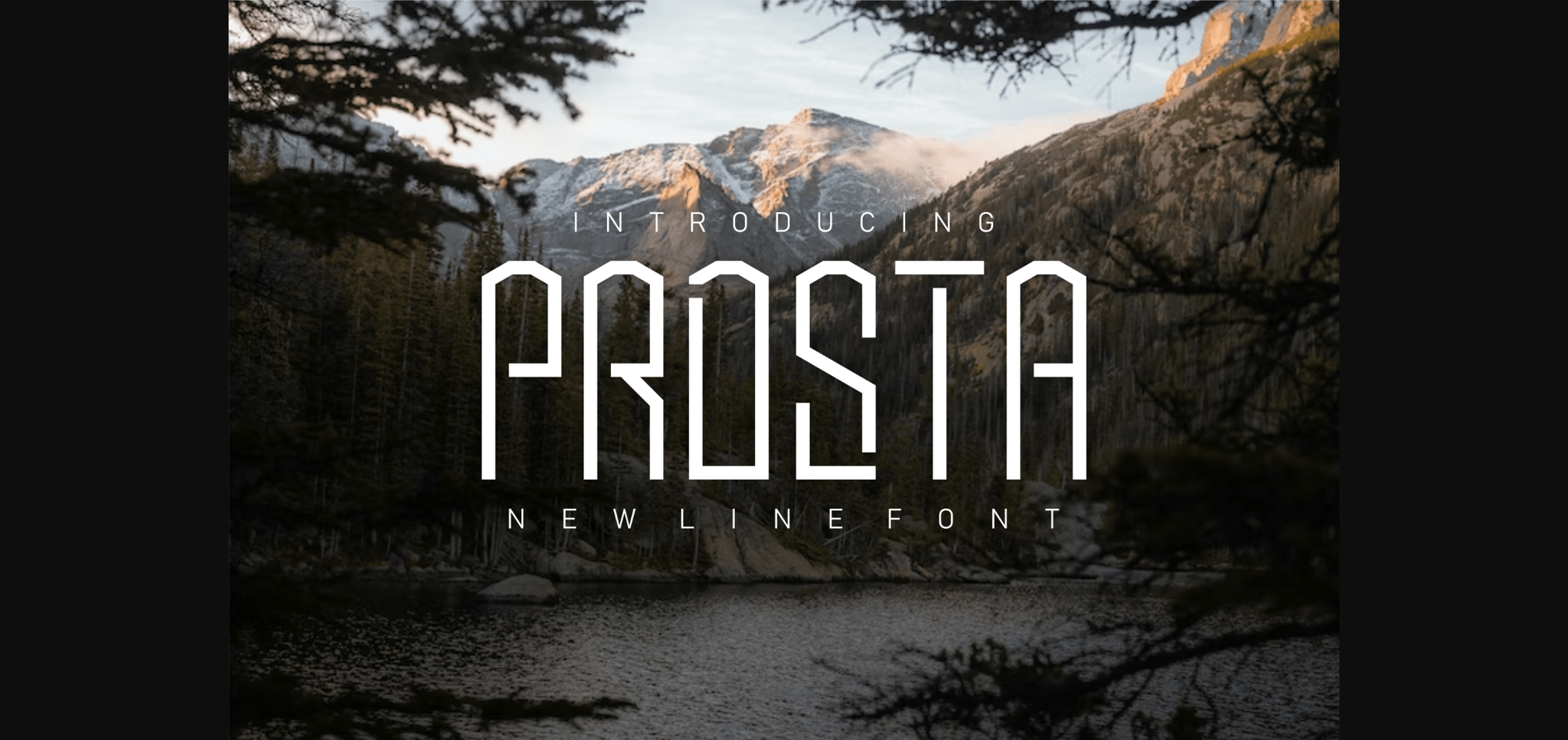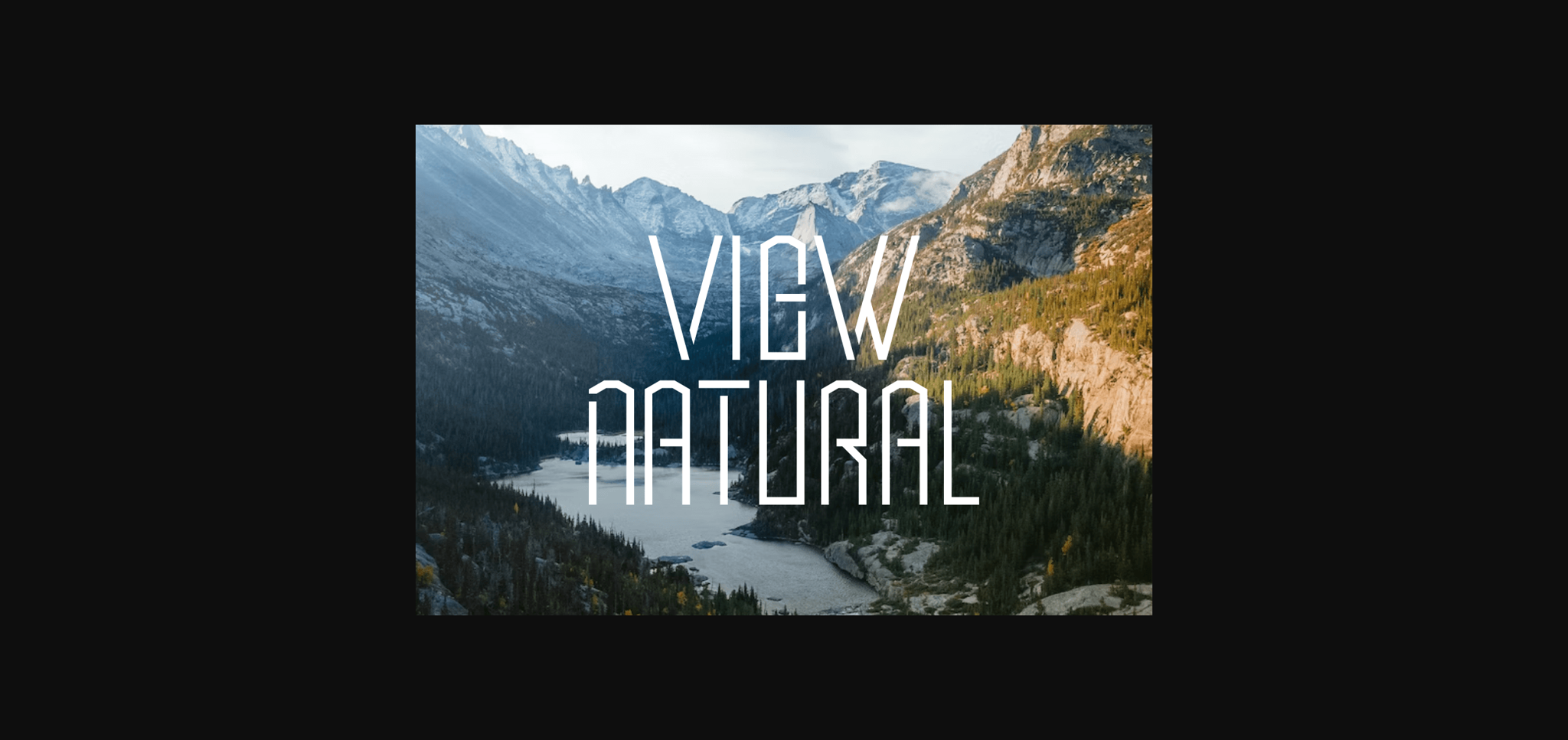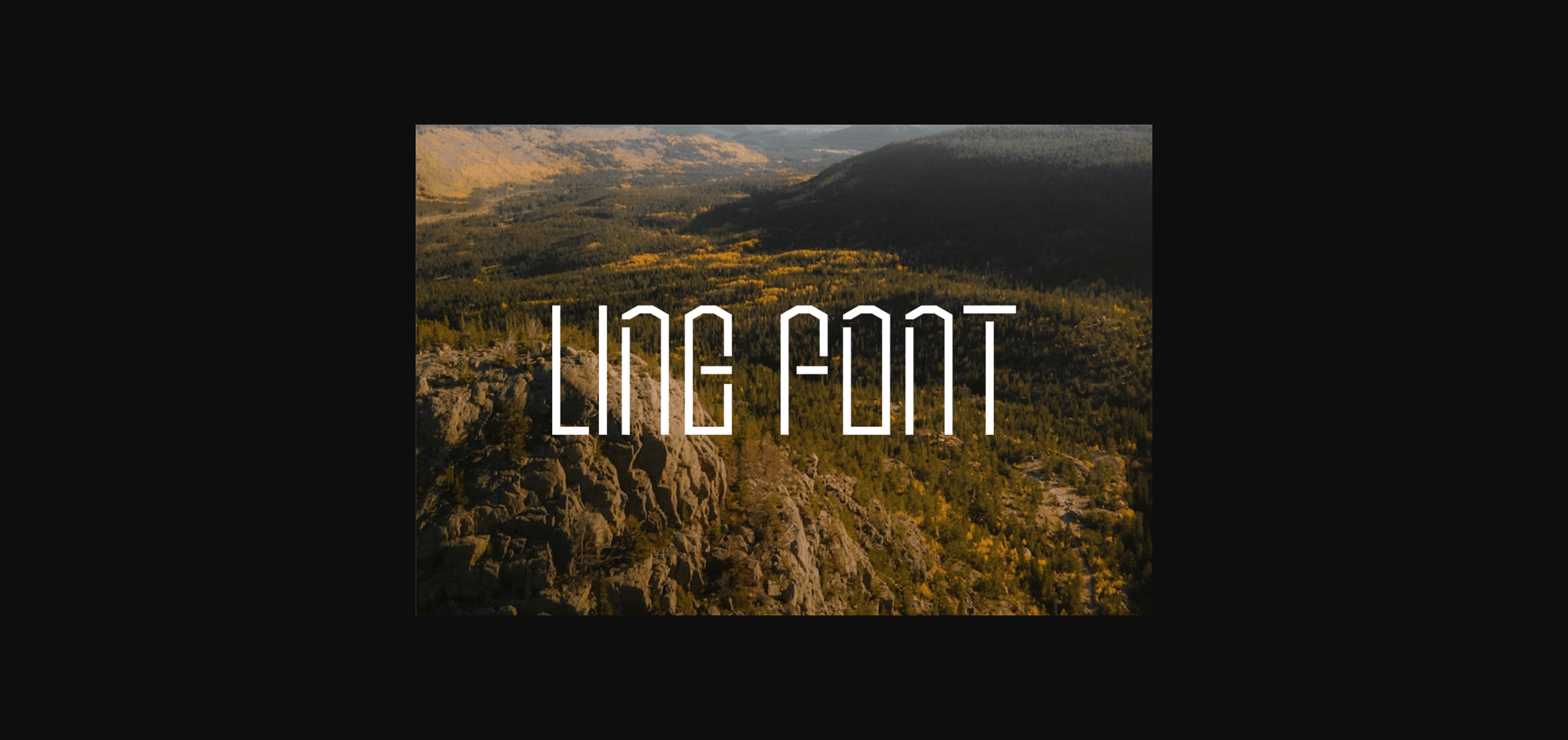
About Prosta Font
Prosta is a modern sans-serif font that feels beautiful, classy, minimalistic, and unique. This font is perfectly suited for a wide variety of projects, such as signature, stationery, logo, wedding, typography quotes, magazine or book covers, website headers, clothing, branding, packaging design, and more.